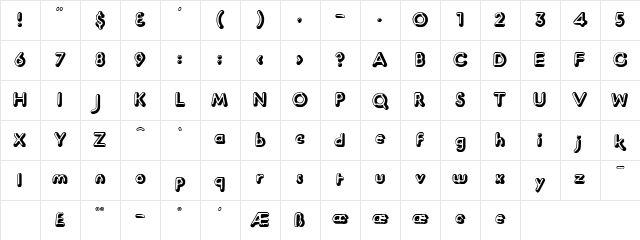
PlutoClaude Outline Regular
Designer: digitized by meg, from standard sources
Design Context for PlutoClaude Outline
PlutoClaude Outline is built around its visual character rather than neutral utility - its distinctive forms are designed to make an impression at display sizes.